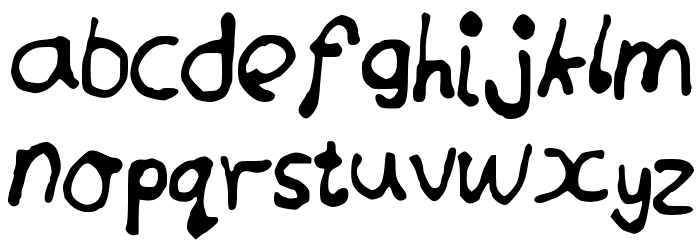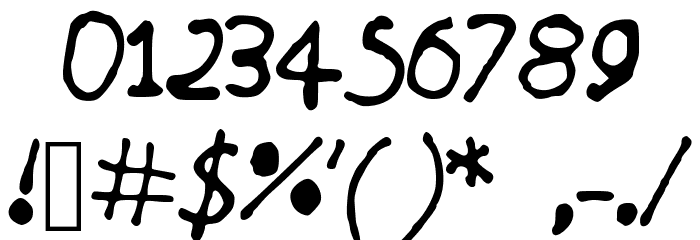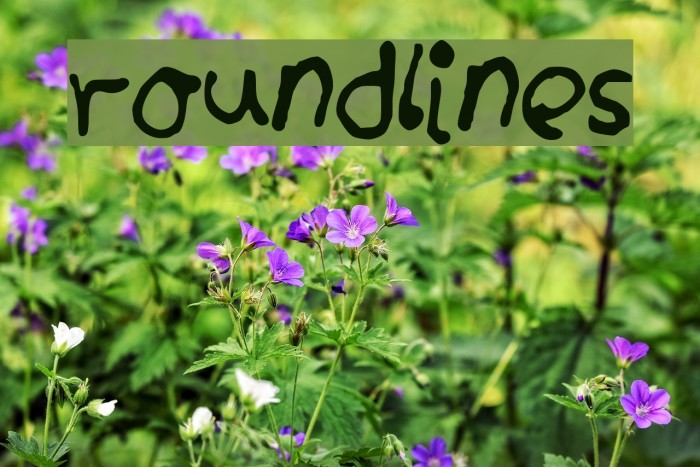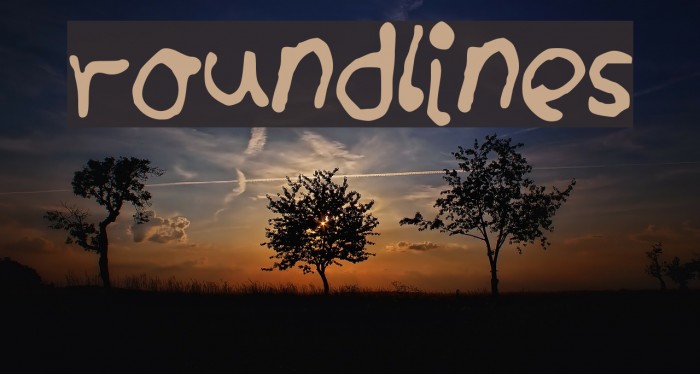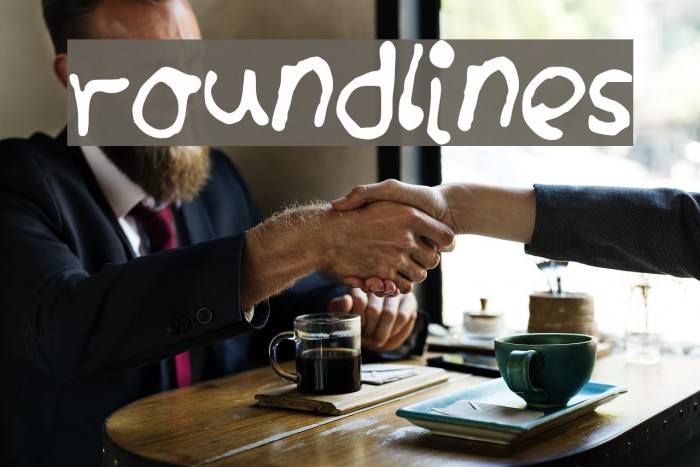
roundlines Font
This font features a playful and organic style with rounded, uneven strokes that give it a hand-drawn appearance. The characters are bold and slightly irregular, adding a whimsical touch to the text. The uppercase and lowercase letters maintain a consistent style, with rounded edges and a casual flow. Numbers and special characters follow the same design, ensuring uniformity across all elements. The overall look is friendly and approachable, making it suitable for creative and informal projects.
A playful, hand-drawn font with rounded, uneven strokes.
- Proposed Projects: Ideal for children's books, greeting cards, playful branding, and creative posters.